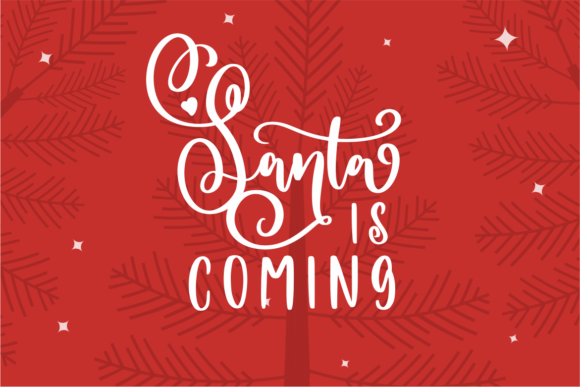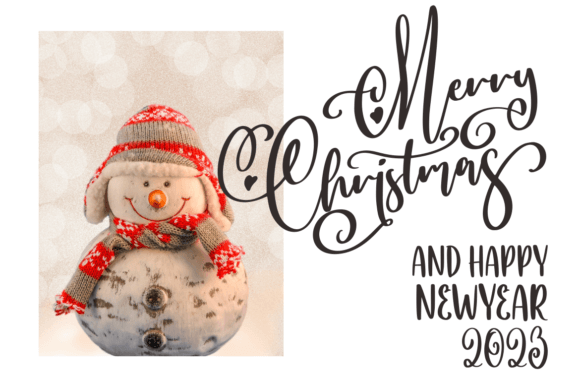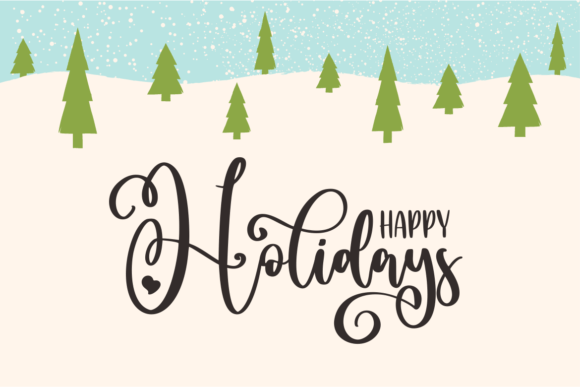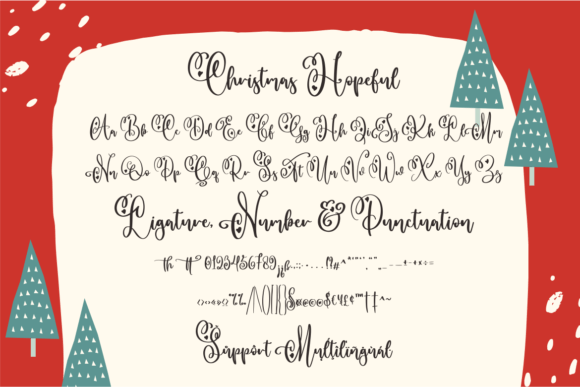
Christmas Hopeful Duo Font
Christmas Hopeful is a stylish and delicate duo font (script and sans serif) suitable for a wide spectrum of applications. From greeting cards to headlines, this font will guarantee a romantic touch to each of your creations!